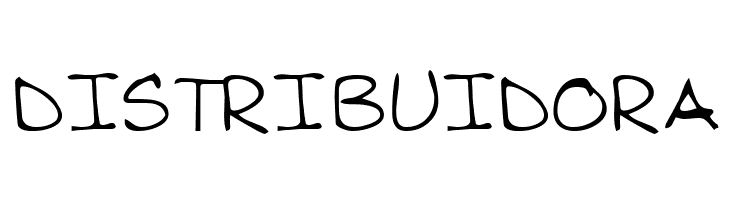
BirminghamScriptDemo Font
- Font: BirminghamScriptDemo
( Fonts by Andy Krahling - Sunwalk )
A playful, hand-drawn font with a casual and informal style.